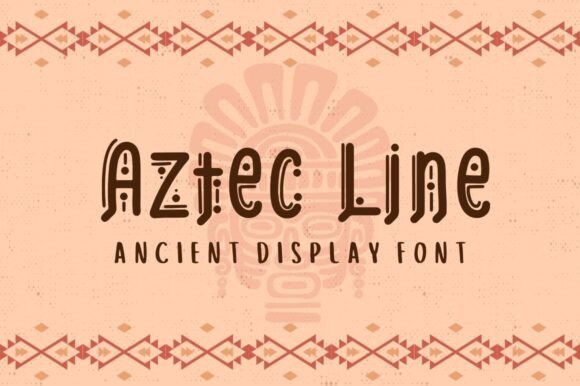
Unleashing the Power of Aztec Line: A Font Fit for the Gods
I’ll never forget the design project that led me to discover Aztec Line. I was working on a historical branding campaign for a museum exhibit on ancient civilizations, and I was struggling to find a font that captured the essence of the Aztec culture. The client wanted something bold, powerful, and evocative of the rich artistry of this ancient civilization. After hours of scouring font libraries and online marketplaces, I stumbled upon Aztec Line – and it was love at first sight! ✨
A Personal Review of Aztec Line
- 💥 **Authentic Aztec Inspiration**: Aztec Line is more than just a font – it’s a gateway to the grandeur of ancient Mesoamerica. The intricate lines, geometric patterns, and symbolic motifs are a testament to the rich cultural heritage of the Aztecs.
- ✅ **Versatility**: Whether you’re designing a historical branding campaign, an adventure poster, or a tribal-themed merchandise, Aztec Line brings a sense of power, tradition, and untamed spirit to your typography.
- 🎨 **Highly Customizable**: With its extensive range of OpenType features, glyphs, and stylistic alternates, Aztec Line offers endless possibilities for creative experimentation.
While Aztec Line is an amazing font, it’s not without its quirks. Here are a few things to keep in mind:
- 🤔 **Limited Legibility**: Due to its intricate design, Aztec Line may not be the best choice for body text or long paragraphs. It’s best used for headlines, titles, or short phrases.
- ⚠️ **Glyph Overload**: With so many glyphs and symbols to choose from, it’s easy to get overwhelmed. Take some time to explore the font’s features and plan your design carefully.
If you’re looking for similar fonts or alternatives to Aztec Line, here are a few options:
- Maya Script: This font is inspired by the ancient Maya civilization and features intricate hieroglyphics and symbolic motifs. Use it for projects that require a similar sense of mysticism and cultural heritage.
- Inca Sans: This font is a modern interpretation of the Inca script and features bold, geometric lines. Use it for projects that require a sense of strength and resilience.
- Aztec Bold: This font is a more condensed version of Aztec Line and features a bolder, more dramatic design. Use it for projects that require a sense of urgency and energy.
- Glyphic: This font features intricate glyphs and symbolic motifs inspired by ancient cultures. Use it for projects that require a sense of mystery and otherworldliness.
The Story Behind Aztec Line
Aztec Line was inspired by the rich cultural heritage of the Aztec civilization. The font’s designer spent months researching the intricate patterns, geometric motifs, and symbolic glyphs that characterized Aztec art and architecture. The result is a font that captures the essence of this ancient culture and brings it to life in a modern context.
Q: What is the best way to use Aztec Line in a design project?
A: Aztec Line is best used for headlines, titles, or short phrases. It’s not recommended for body text or long paragraphs due to its intricate design.